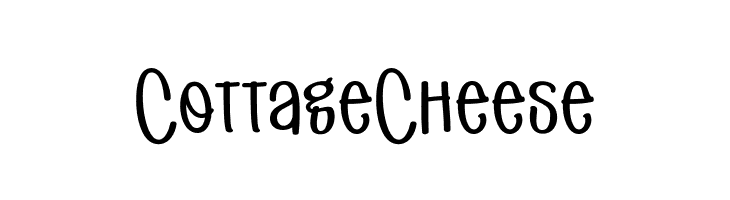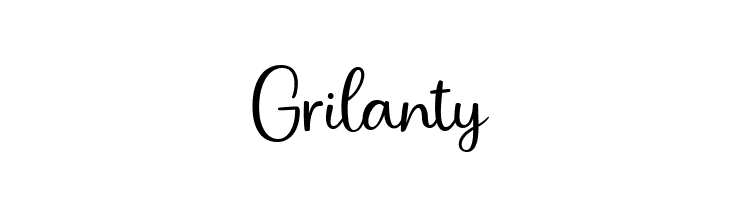
A whimsical, hand-drawn font with decorative swirls and playful embellishments.
A flowing, cursive font with elegant, sweeping strokes.
A playful decorative font with characters and symbols enclosed in dotted circles.
A playful, decorative font with starburst and circular motifs.
A decorative and artistic font with intricate details and whimsical embellishments.
A bold, distressed font with star patterns and a vintage feel.
A decorative font styled like barbed wire, offering a rugged and edgy appearance.
A bold, decorative font with unique spiral embellishments.
A bold, decorative font with intricate circular patterns and a mechanical feel.
A decorative, mechanical-themed font with intricate circular and linear patterns.
A bold, decorative font with intricate loops and swirls, resembling abstract art.
A bold, angular font with a lightning-like, energetic design.
A bold, modern font with angular characters enclosed in squares.
A playful font with characters enclosed in teardrop shapes, offering a whimsical and decorative style.